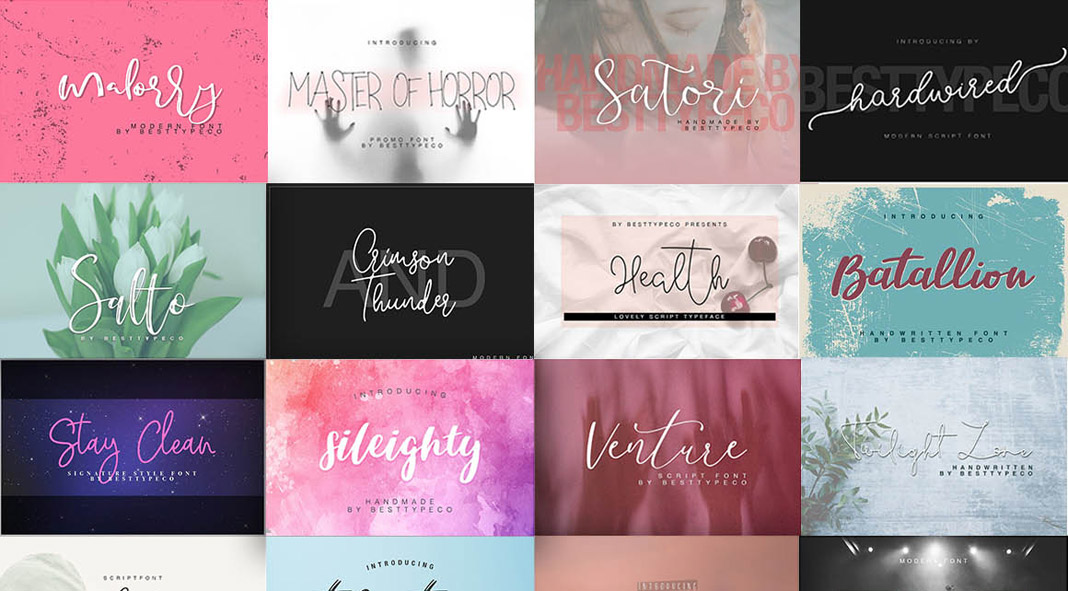
The team of Pixelo had teamed up with some of the most skilled font creators to bring you the Cyclopean fonts bundle. The bundle includes 91 highly professional font families consisting of 141 unique typefaces. The selection was made based on timelessness, uniqueness, and usability. This variety of fonts will help you to create outstanding designs for posters, greeting cards, blogs, logos, branding materials, magazines, business cards, quotes, just to name a few. The possibilities seem endless! As all of Pixelo’s bundles, all included typefaces come with an extended license of use. Available for just a few days, you can grab this amazing deal for only $39 instead of $2450—that’s a discount of 98%! For further information, just follow the link below.